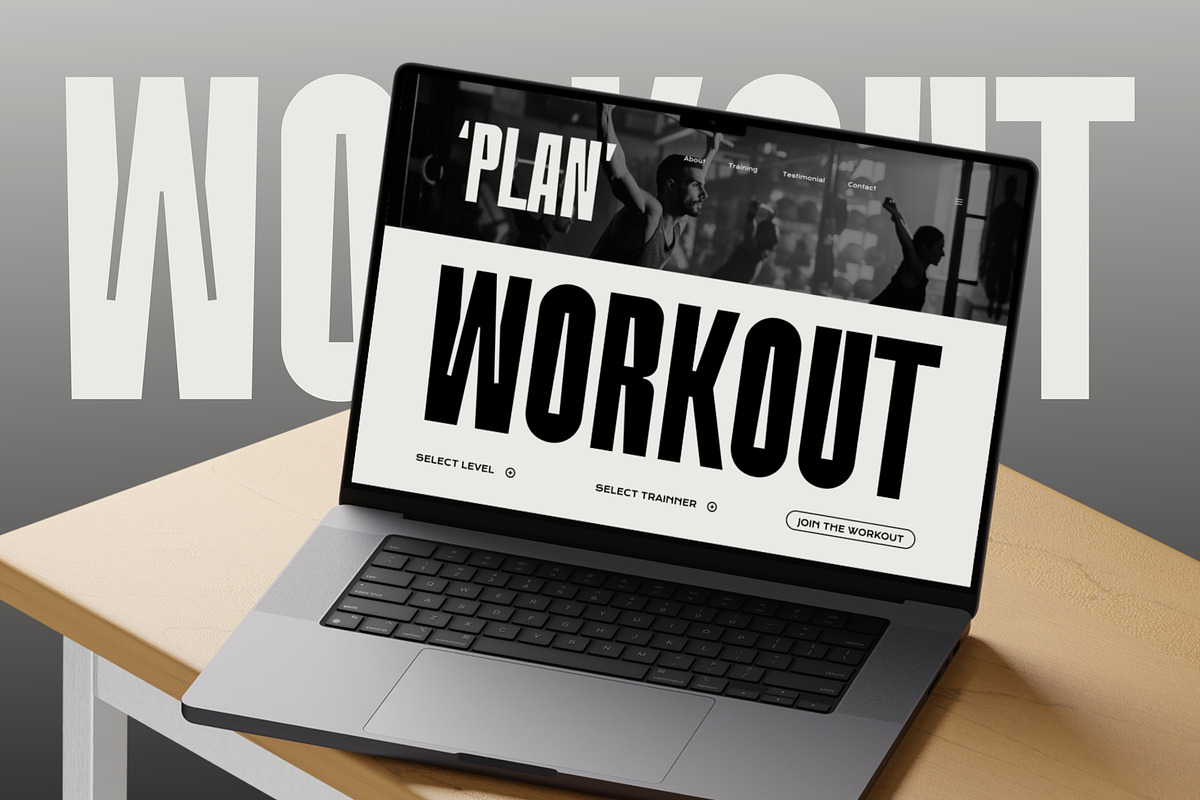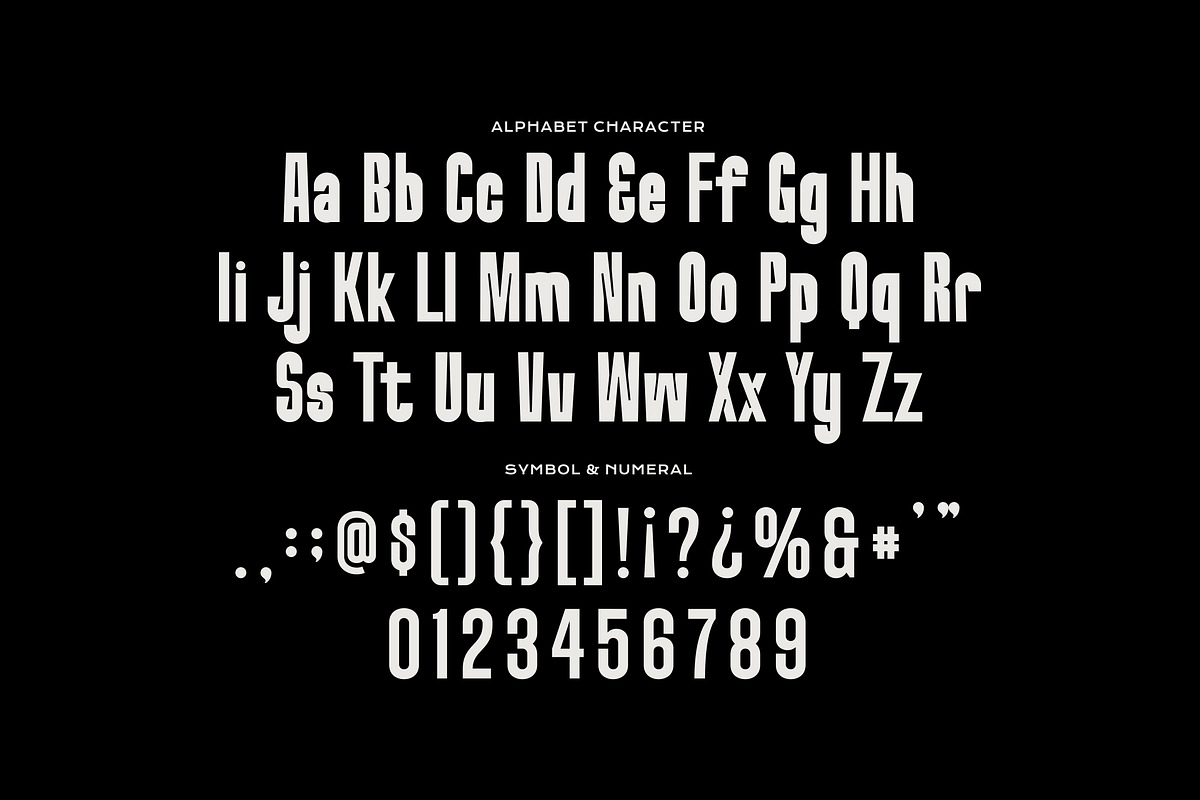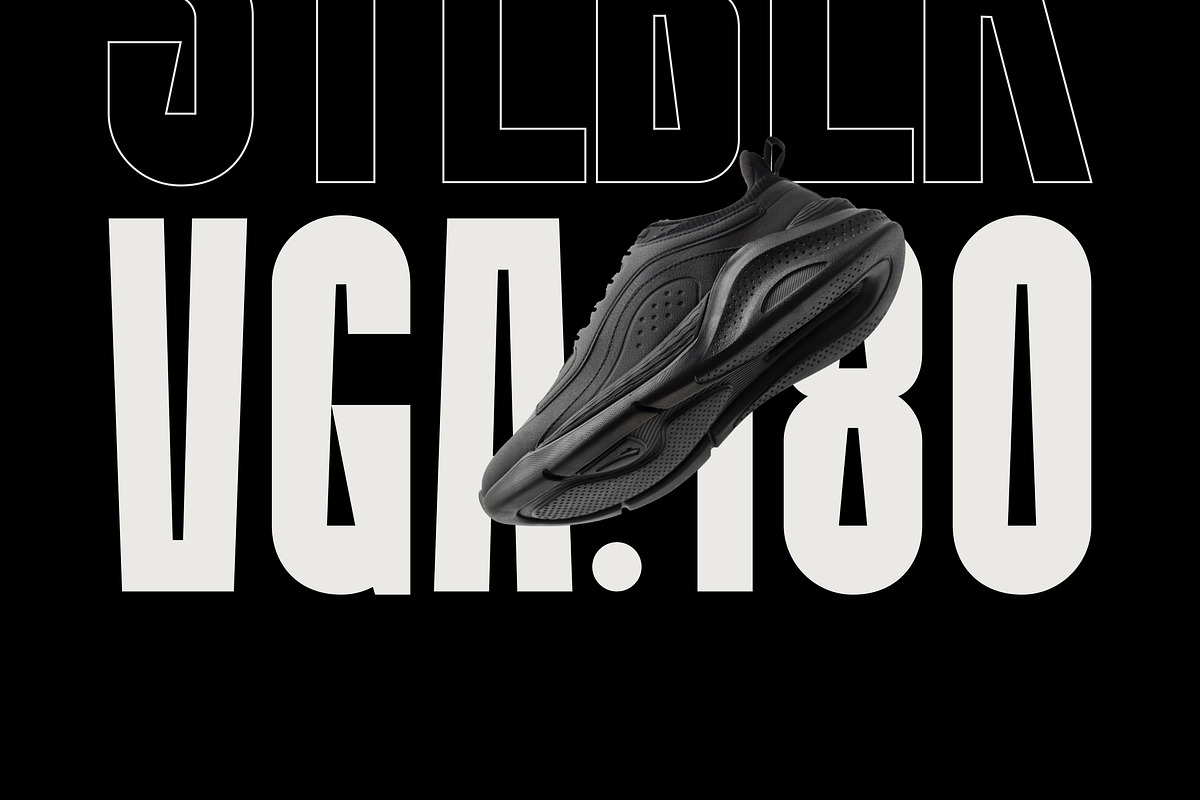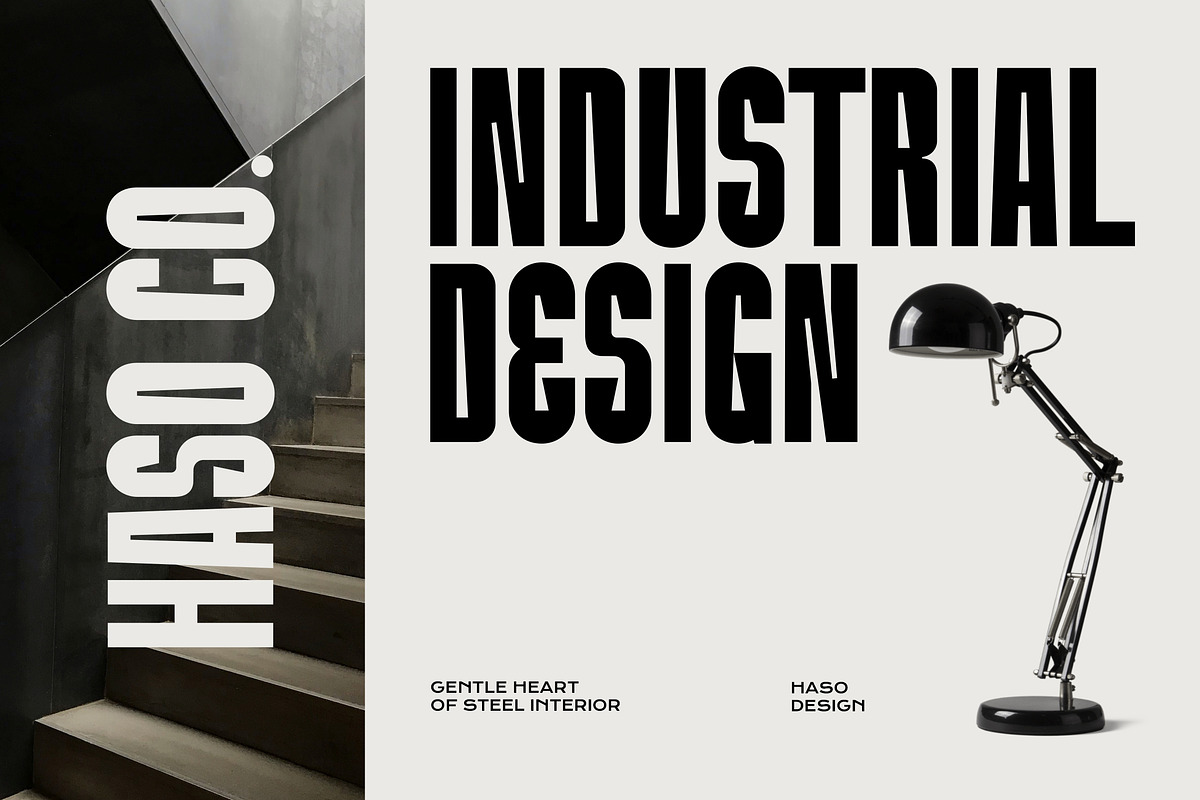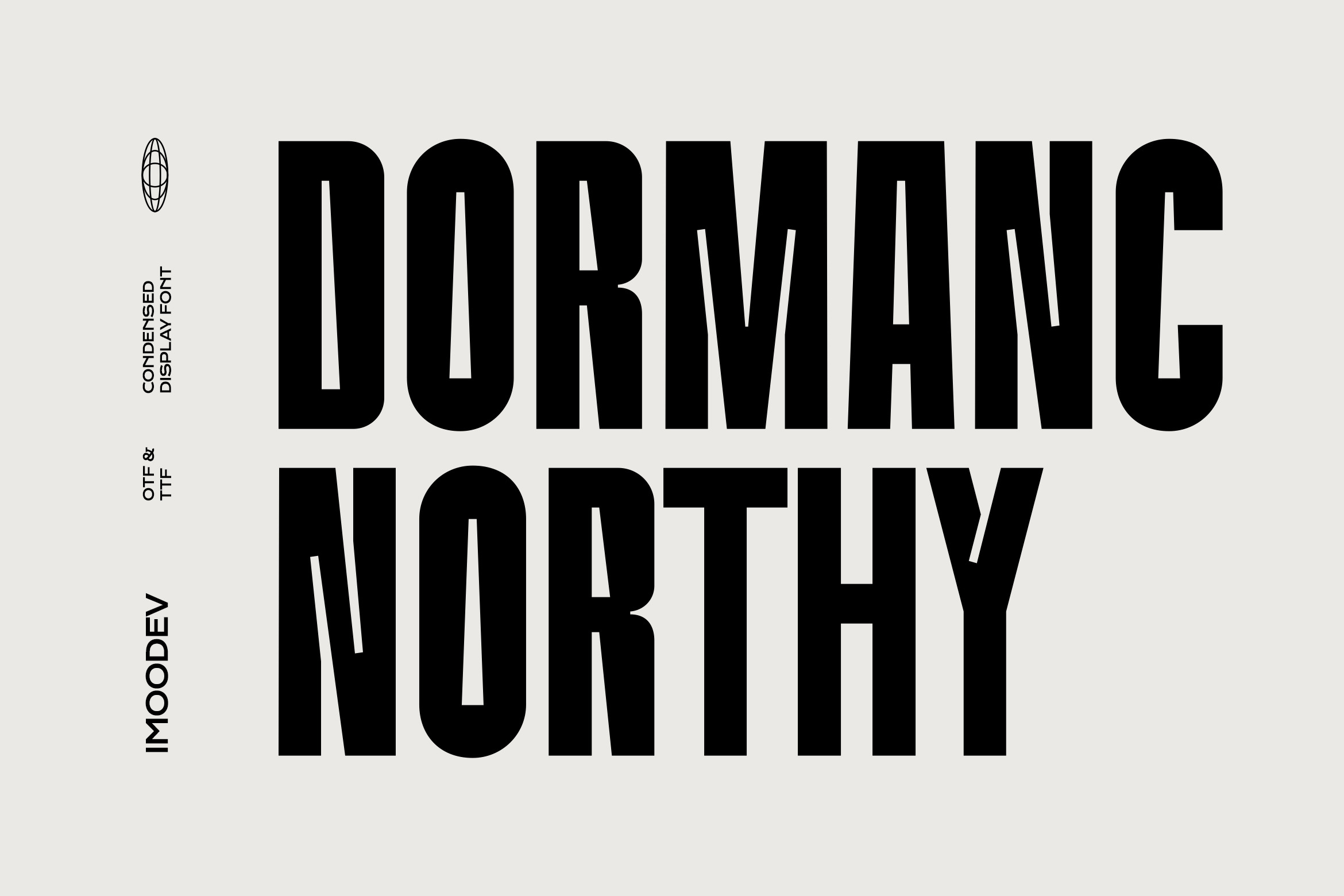
Dormanc Northy - Condensed Font
Dormanc Northy is a bold condensed display font. The letters are blocky, giving them a modern, impactful, and strong appearance. This font is ideal for display purposes, especially for headlines or titles, as it captures attention quickly. The overall aesthetic is minimalistic, with a strong typographic presence.
This font is perfect for design focused visuals where attention-grabbing, modern typography is essential. It works especially well for titles, headers, fast car racing sports titles, running matches, cycling, automotive game logos and monograms, posters, jersey designs, sport slogans, any writing that requires a strong, bold vibe, and branding related to industrial or minimalist design.
Uppercase and Lowecase Characters.
Numerals and Punctuations.
Alternates and Ligatures.
Multilingual Support.